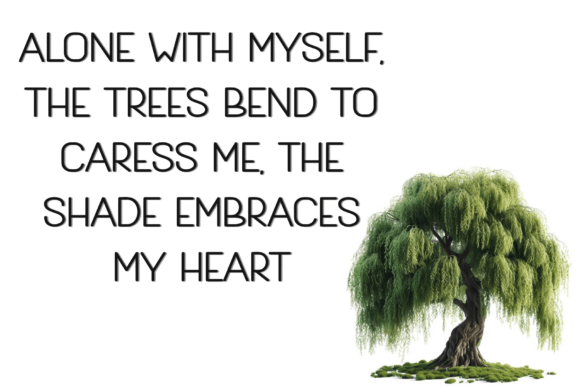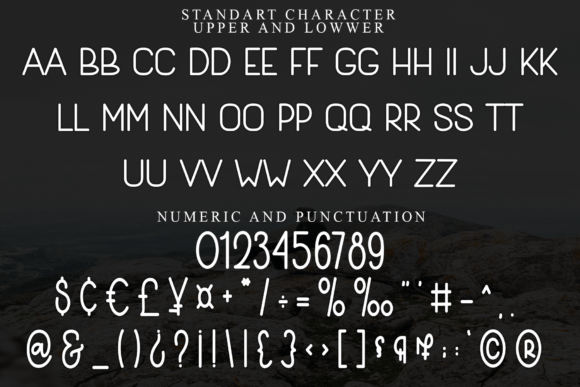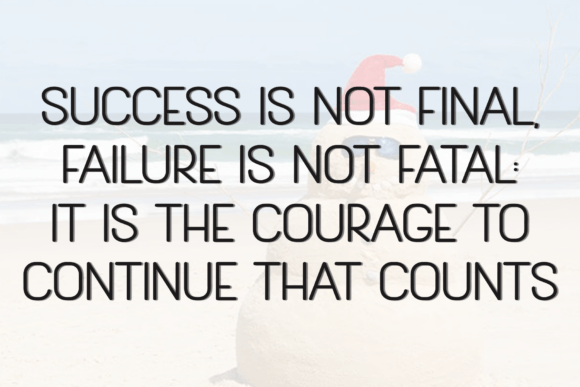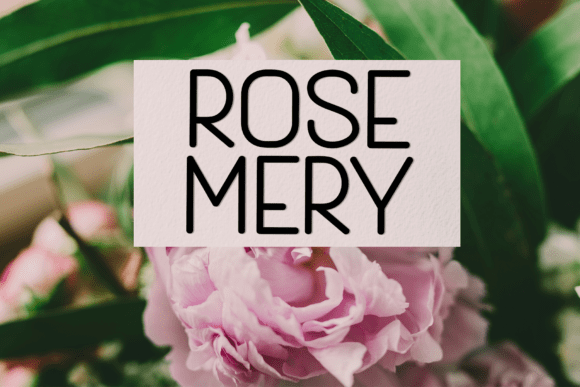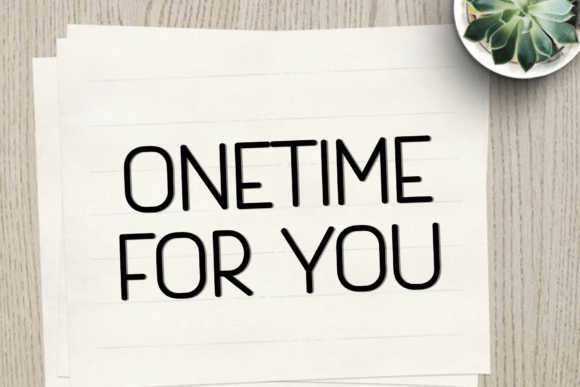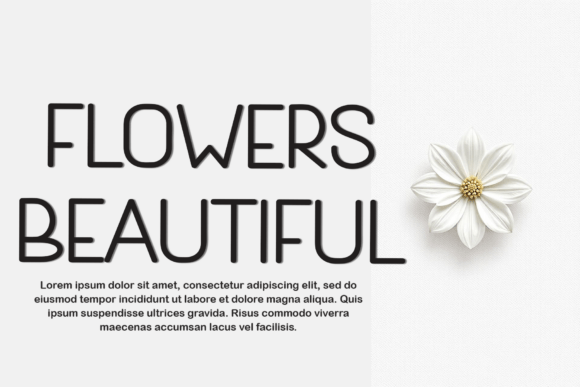
Introduction to Planning Absolute Font
As a designer, have you ever stumbled upon a font that captures the essence of the holiday season and transports you to a world of wonder and magic? For me, that font is the Planning Absolute Font. Its festive and merry design elements evoke a sense of enchantment, making it the perfect addition to any holiday-themed project.
Whether you’re working on a greeting card, gift tag, or any other creative project, the Planning Absolute Font is a valuable resource that can elevate your design to the next level. With its high-quality design and transparent background, this font is a must-have for any designer looking to add a touch of whimsy to their work. And the best part? It’s PUA encoded, making it easy to access all of its amazing glyphs and ligatures.
Key Features of Planning Absolute Font
- High-quality design resource ideal for creative projects, including presentations, infographics, and more.
- Available in a transparent background format, allowing for easy integration with various design elements.
- Features a clean and modern design, perfect for modern and professional-looking creative projects.
- Unique characteristics include a minimalist aesthetic and a highly customizable design, making it an excellent choice for designers seeking a versatile design resource.
Honest Review: Planning Absolute Font
As a designer, I’m always on the lookout for high-quality design resources that can elevate my creative projects. The Planning Absolute Font has been a great addition to my toolkit, and I’m excited to share my thoughts with you.
- Transparent background: The font has a transparent background, making it easy to layer over images or other design elements.
- High-quality design: The font is clean, modern, and highly legible, making it perfect for a variety of creative projects.
While the Planning Absolute Font is a great resource, there are a few limitations to be aware of:
- Limited font sizes: The font is designed for use at larger sizes, and may not be suitable for very small or very large text.
- No bold or italic versions: The font only comes in regular weight, which may limit its use in certain creative projects.
Overall, I’m impressed with the Planning Absolute Font. It’s a high-quality design resource that’s perfect for creative projects that require a clean, modern look. While it may have some limitations, I think it’s definitely worth considering for your next design project.
Planning Absolute Font
Planning Absolute Font is a high-quality design resource that offers a unique and stylish look for your creative project. This font is perfect for anyone looking to add a touch of sophistication and elegance to their designs.
Tips for Getting the Most Out of Planning Absolute Font
To get the most out of Planning Absolute Font, use it on a transparent background to create a clean and minimalist look. You can also pair it with other high-quality fonts to create a unique and eye-catching design.
Common Use Cases for Planning Absolute Font
Planning Absolute Font is perfect for a variety of creative projects, including business cards, brochures, and social media graphics. It’s also great for creating invitations, menus, and other event-related materials.